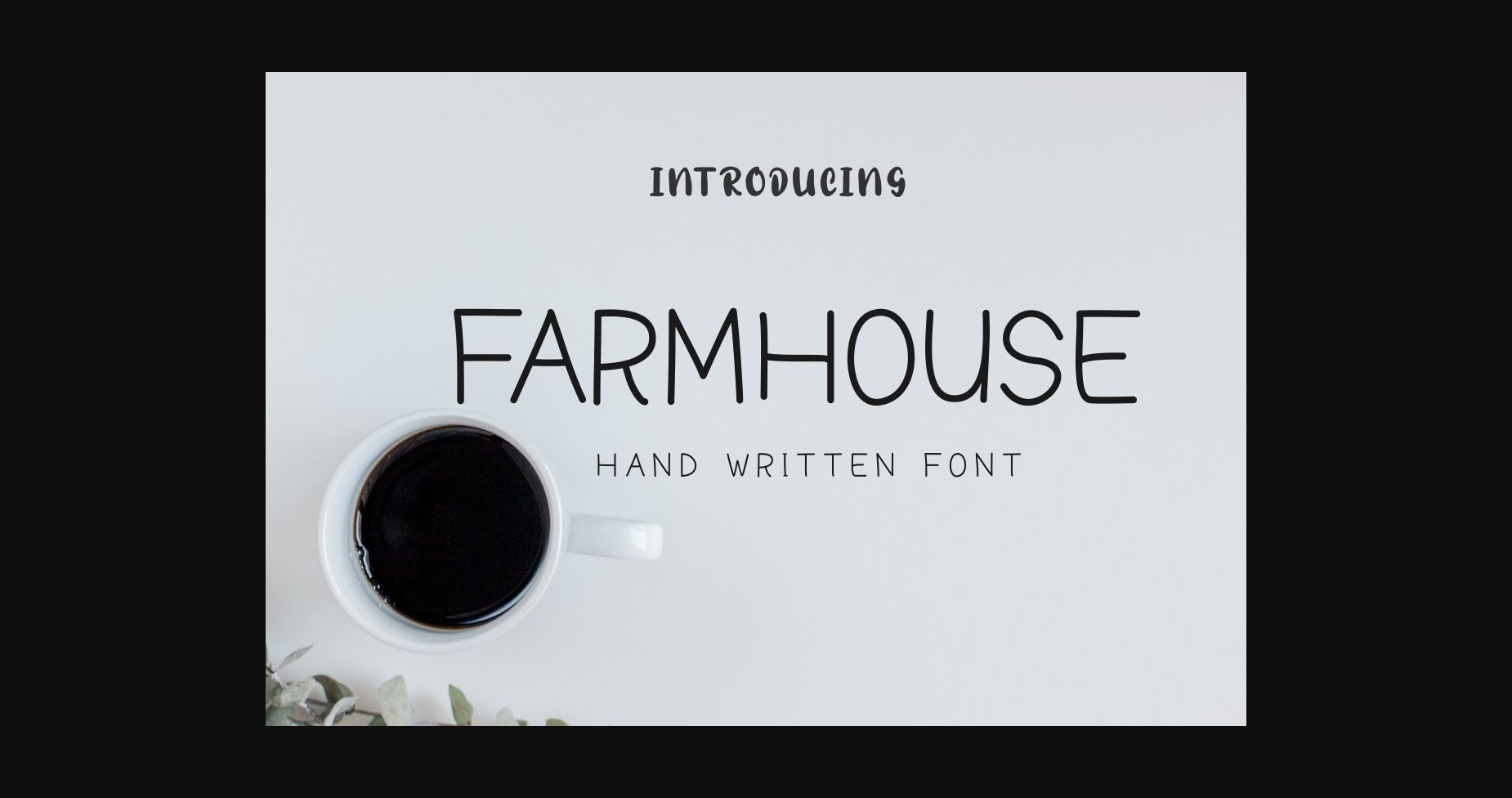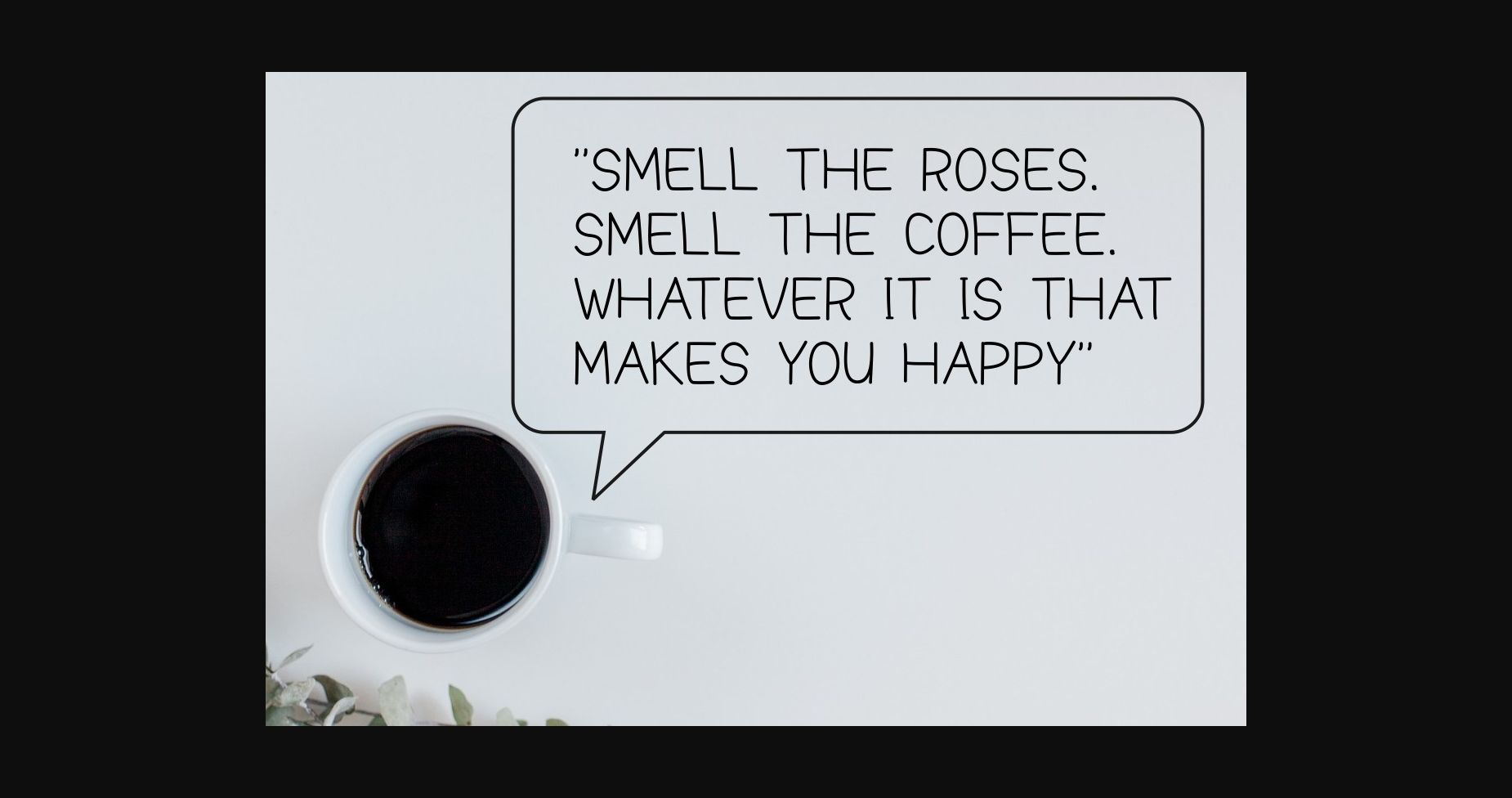
About Farmhouse Font
Farmhouse is a beautiful and neat sans serif font, perfect for making your designs stand out from the crowd. Its characters are perfect for wall displays, wedding invitations, social media post logos, advertisements, product packaging, product designs, labels, photography, watermarks, invitations, stationery, and any project that requires modern typography.